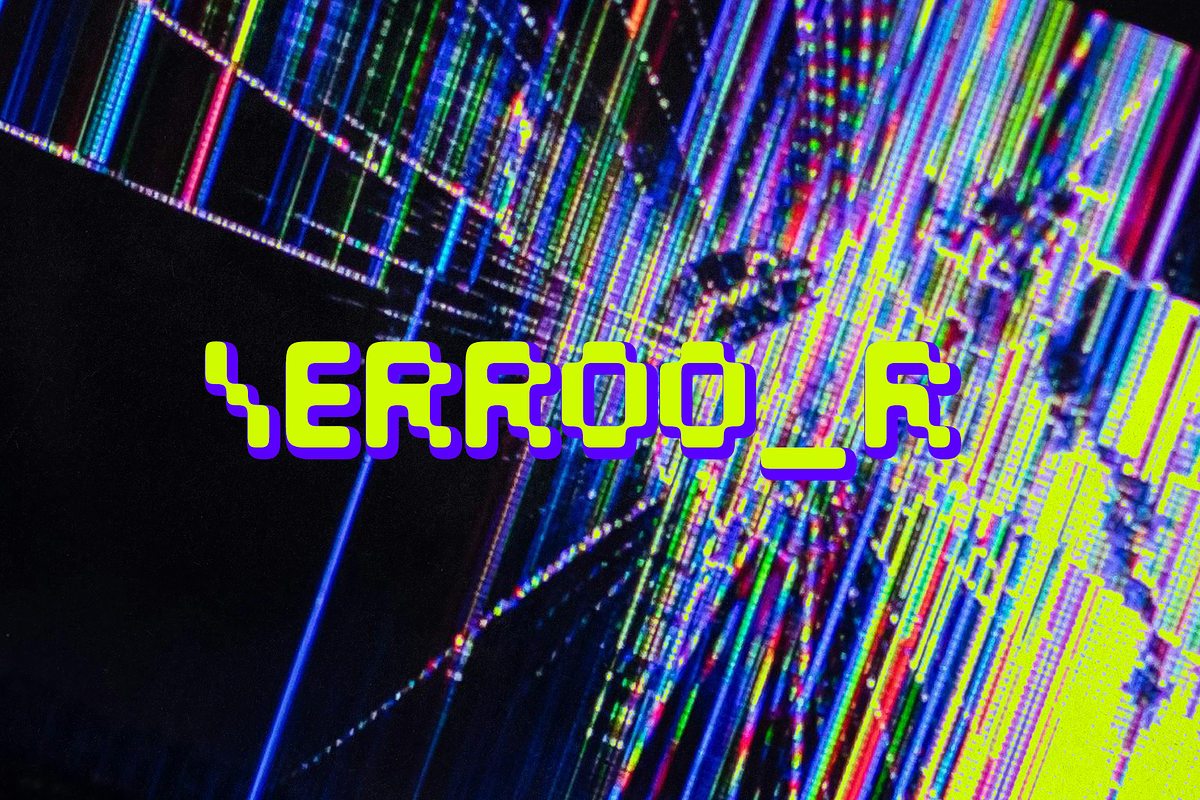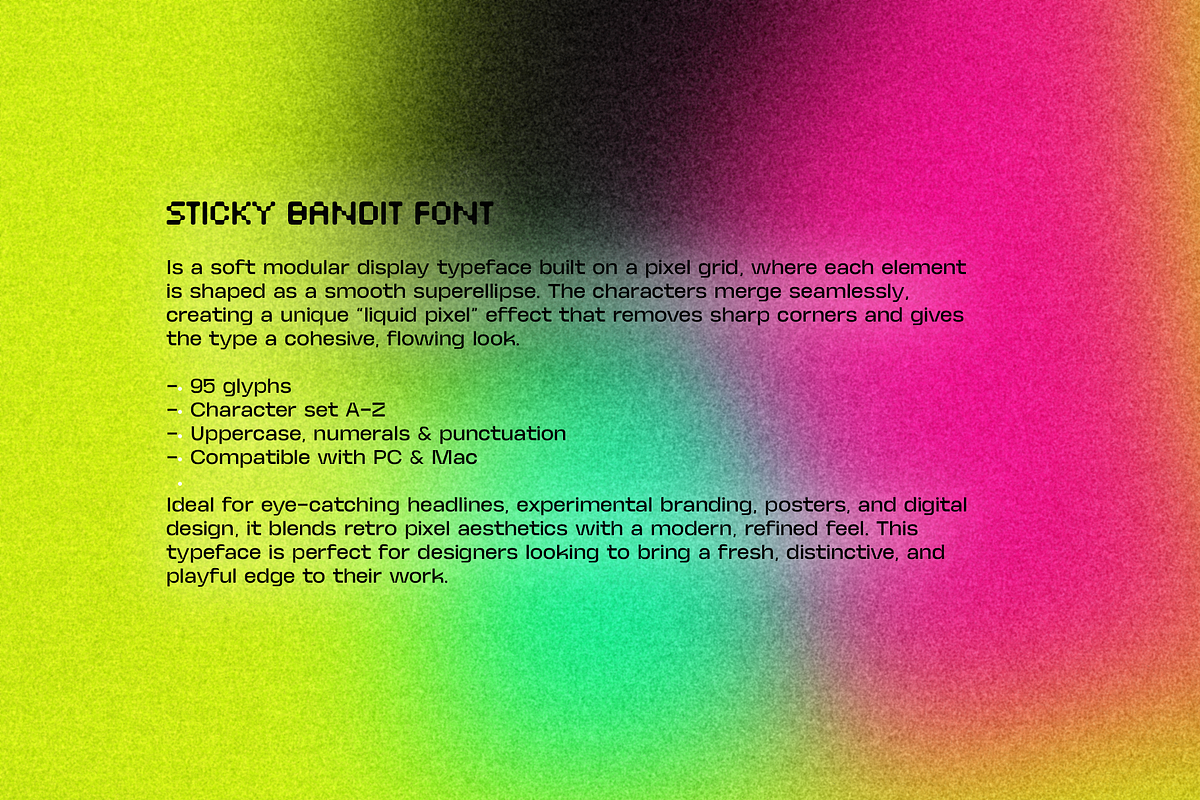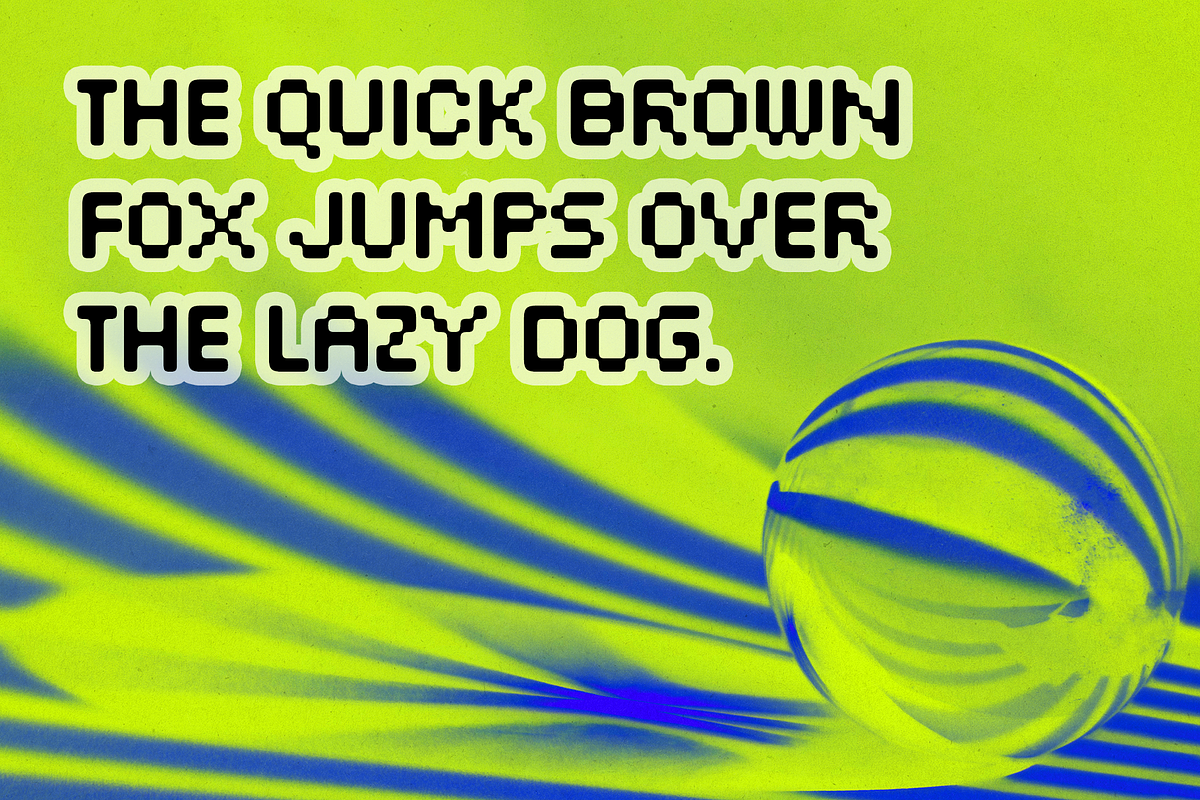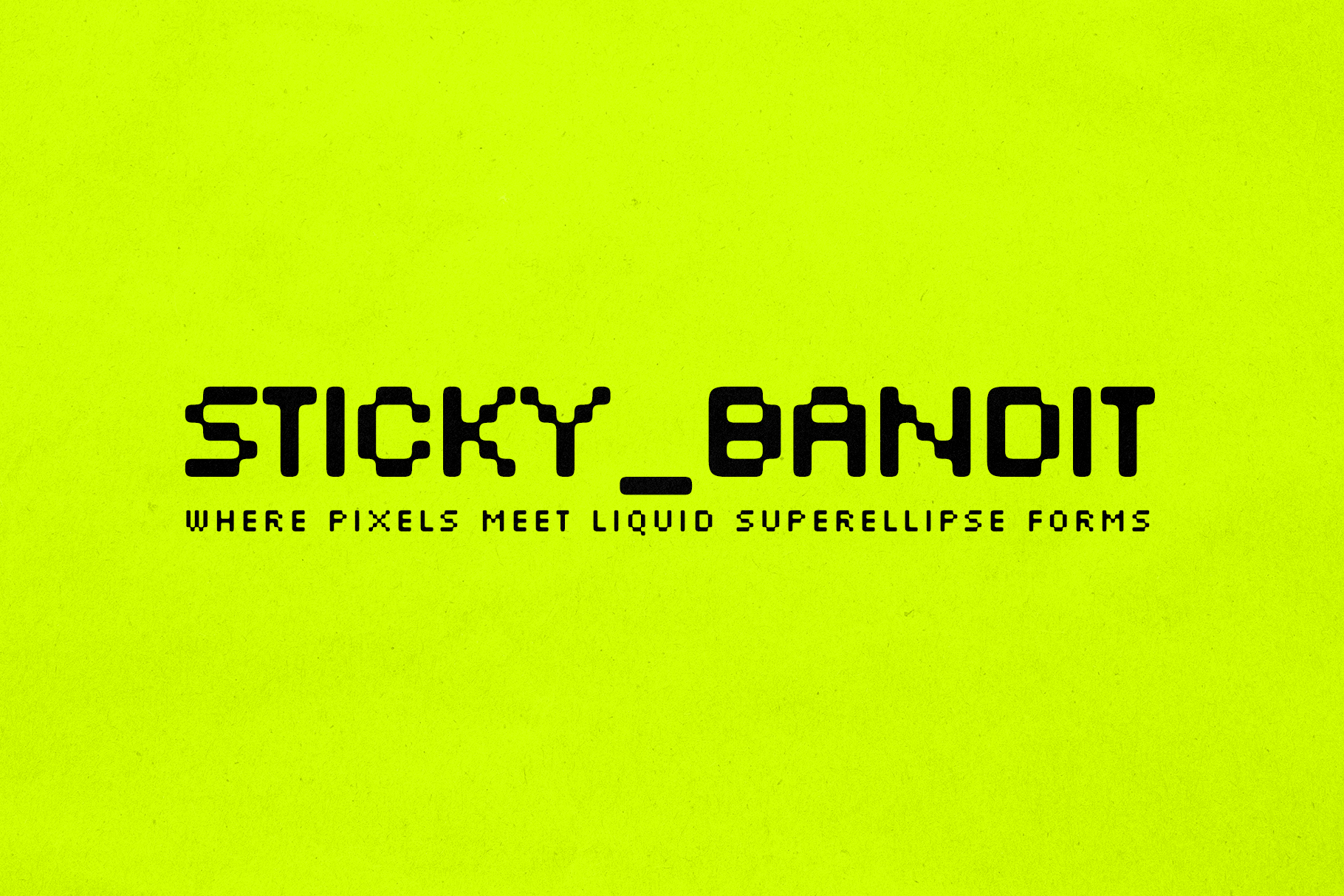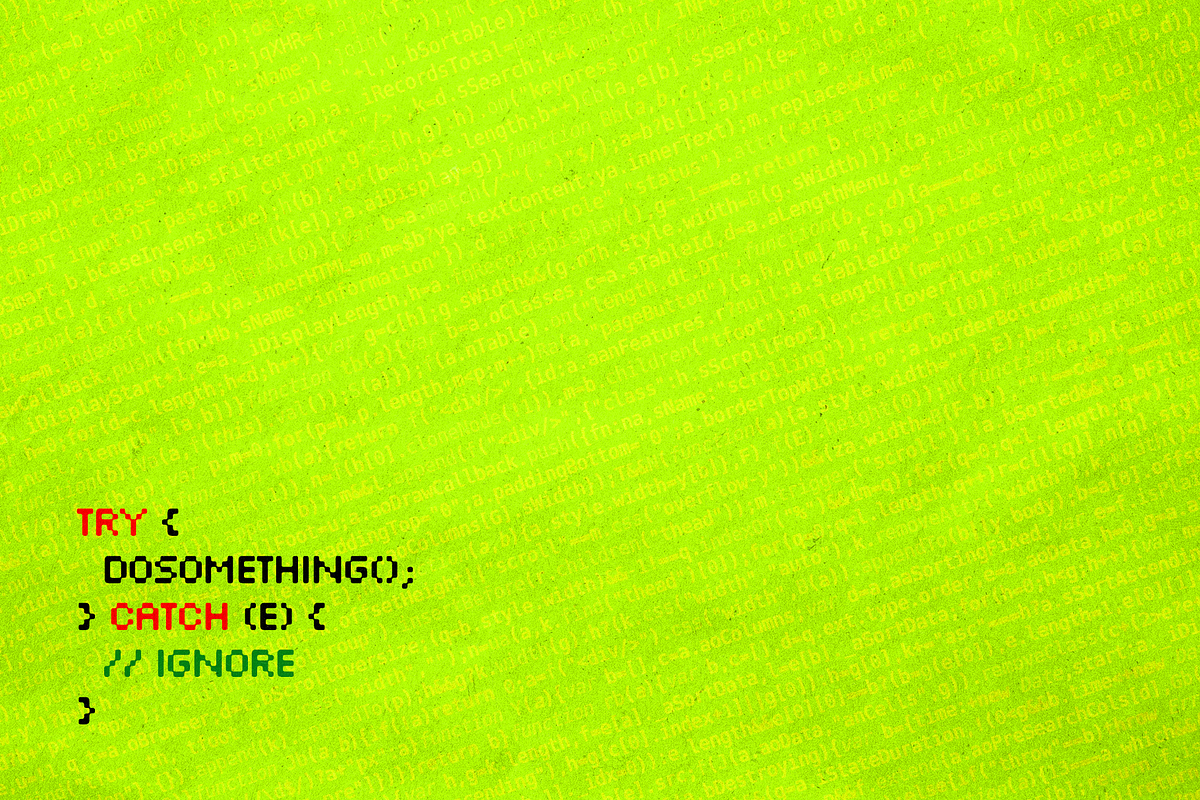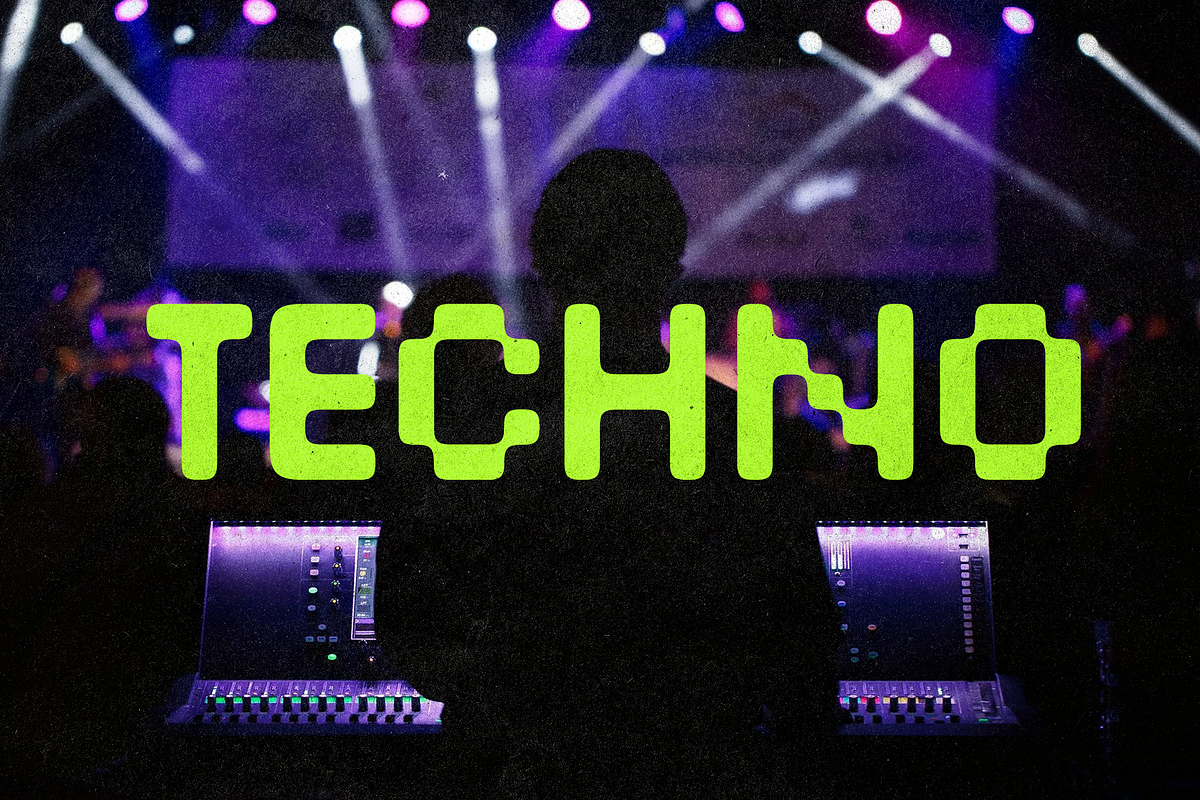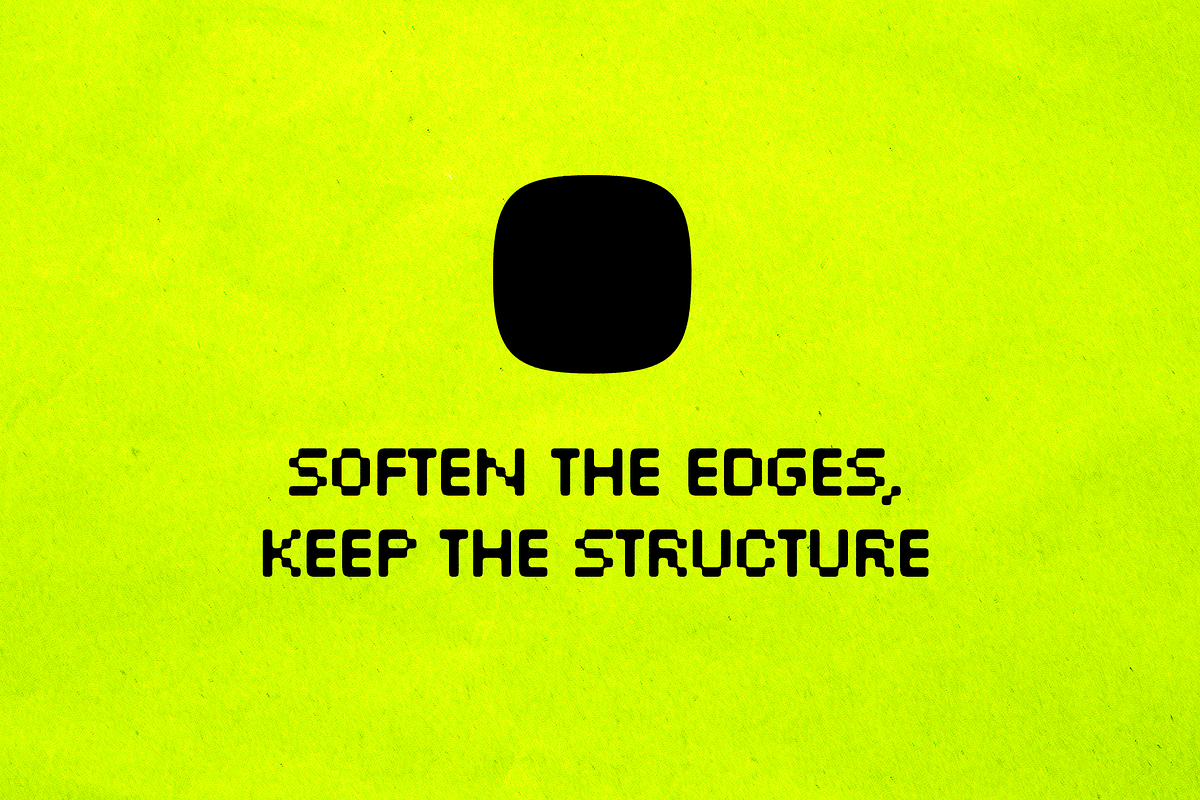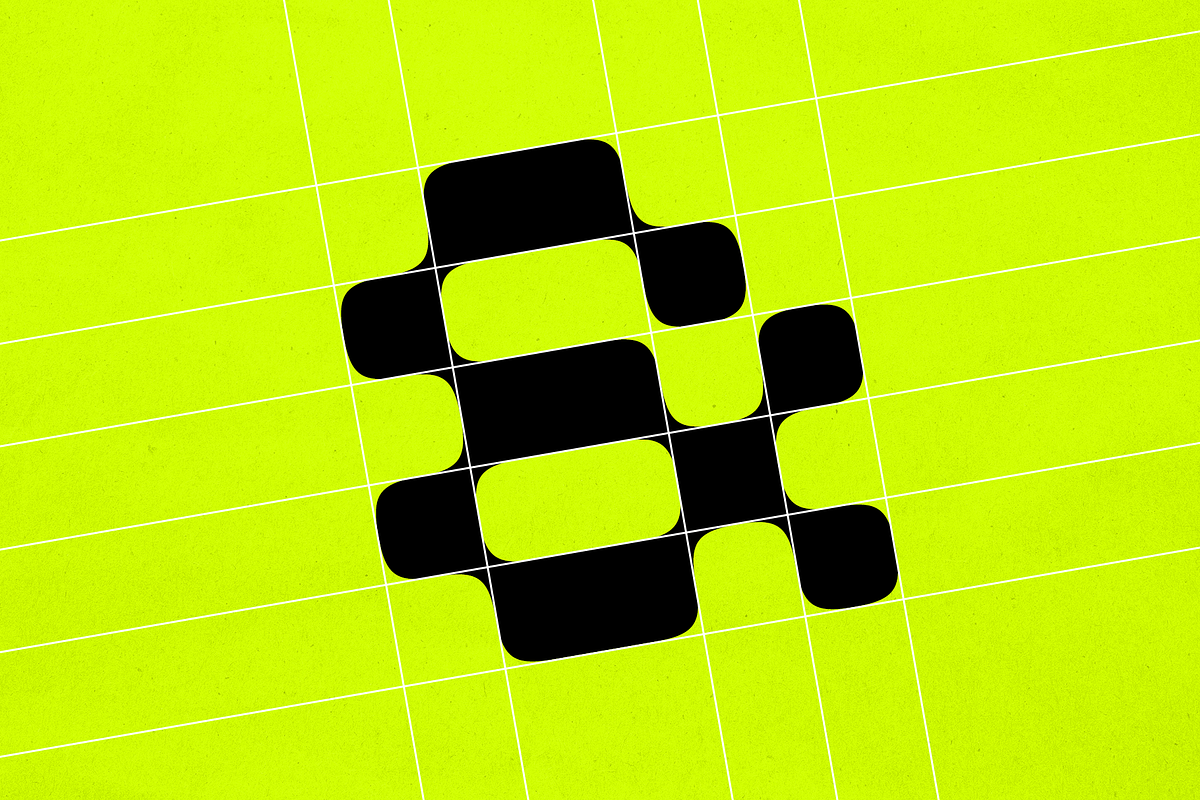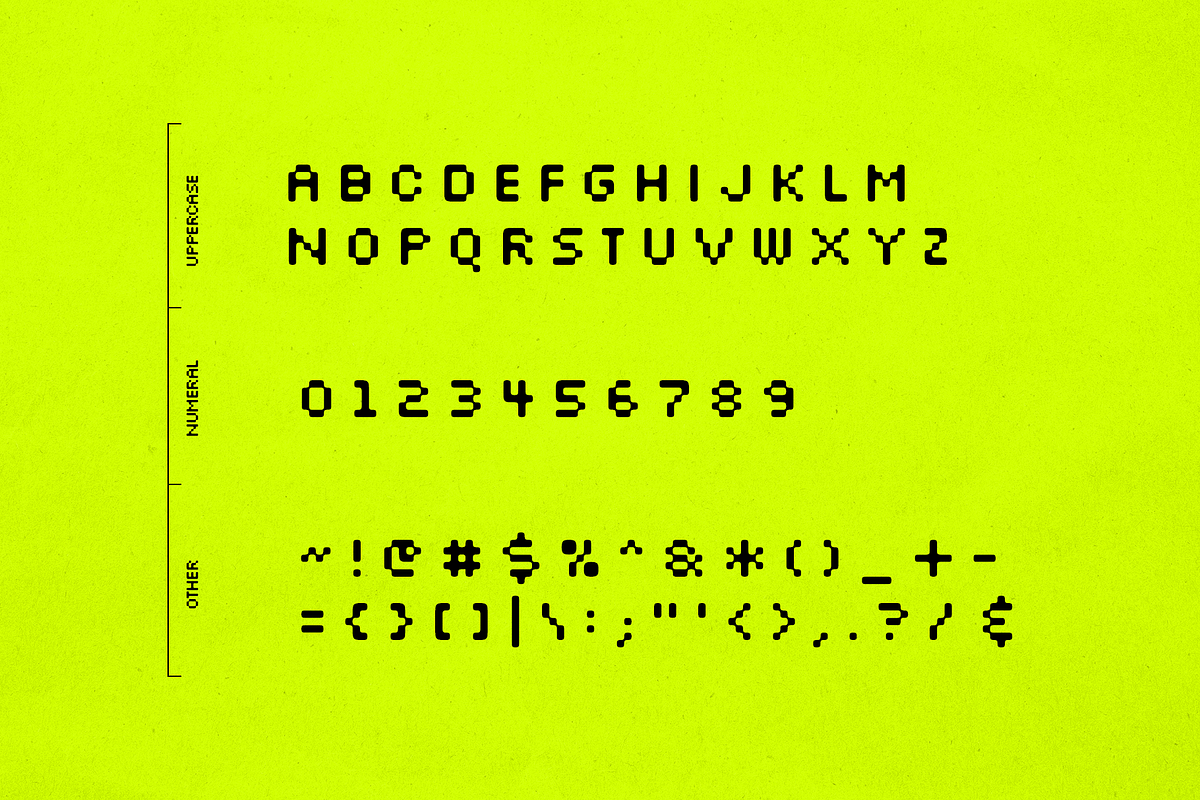
Sticky Bandit Font
Is a soft modular display typeface built on a pixel grid, where each element is shaped as a smooth superellipse. The characters merge seamlessly, creating a unique “liquid pixel” effect that removes sharp corners and gives the type a cohesive, flowing look.
Inspired by early digital aesthetics yet reimagined through a contemporary lens, the typeface balances structure and fluidity, geometry and softness. Its rounded modular system allows letters to interact harmoniously, forming a distinctive visual rhythm that feels both nostalgic and futuristic.
Originally developed for the Blogoodf brand, the typeface is currently used as the core of its visual identity, including its YouTube channel, where it defines the overall tone and recognizability of the content.
95 glyphs
Character set A–Z
Uppercase, numerals & punctuation
Ideal for eye-catching headlines, experimental branding, posters, and digital design, it blends retro pixel aesthetics with a modern, refined feel. Whether used in bold compositions or minimal layouts, it maintains strong visual impact and readability.
This typeface is perfect for designers looking to bring a fresh, distinctive, and playful edge to their work. It works especially well in tech-inspired visuals, creative coding projects, motion graphics, UI concepts, album artwork, and editorial experiments — anywhere a balance of precision and personality is needed.